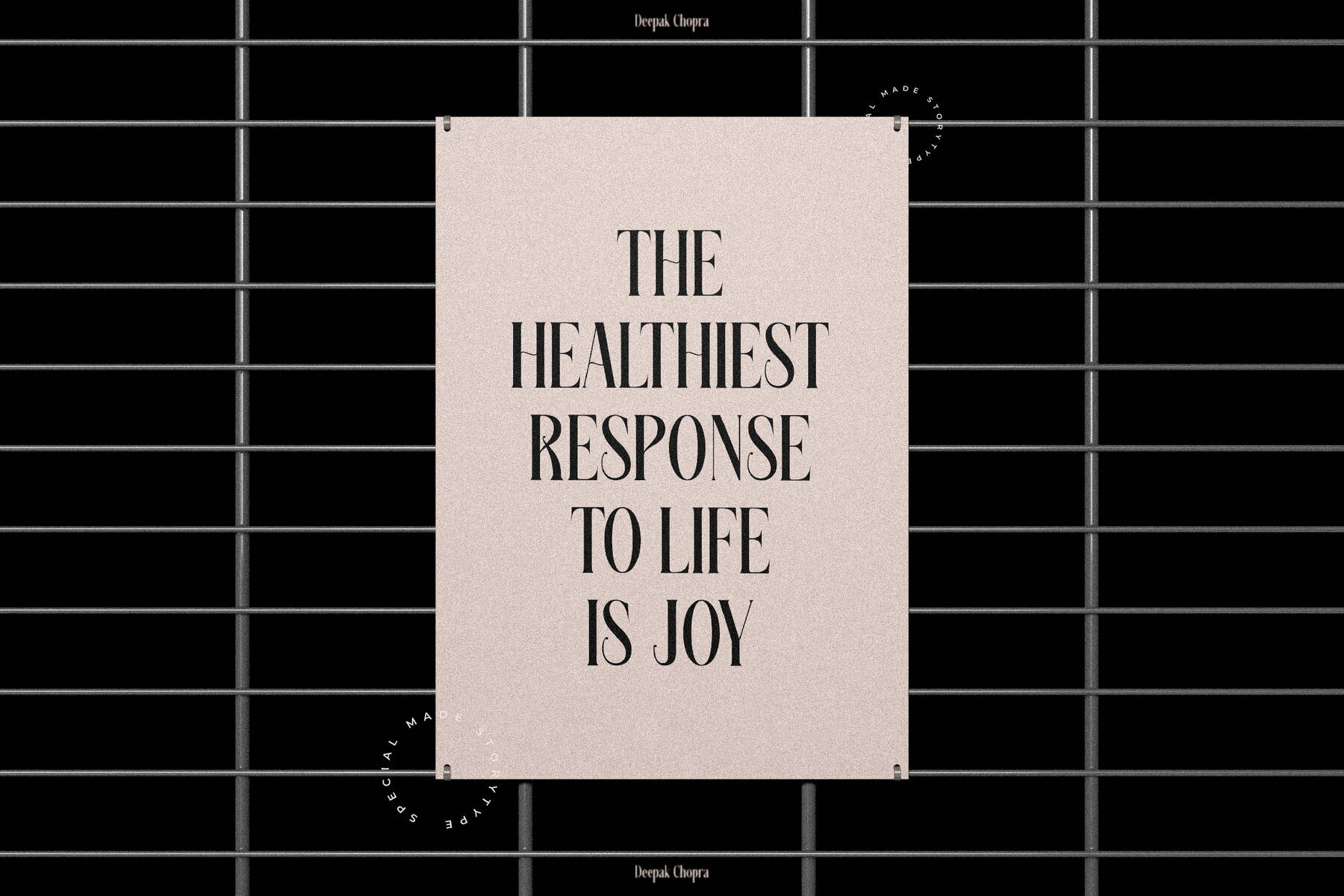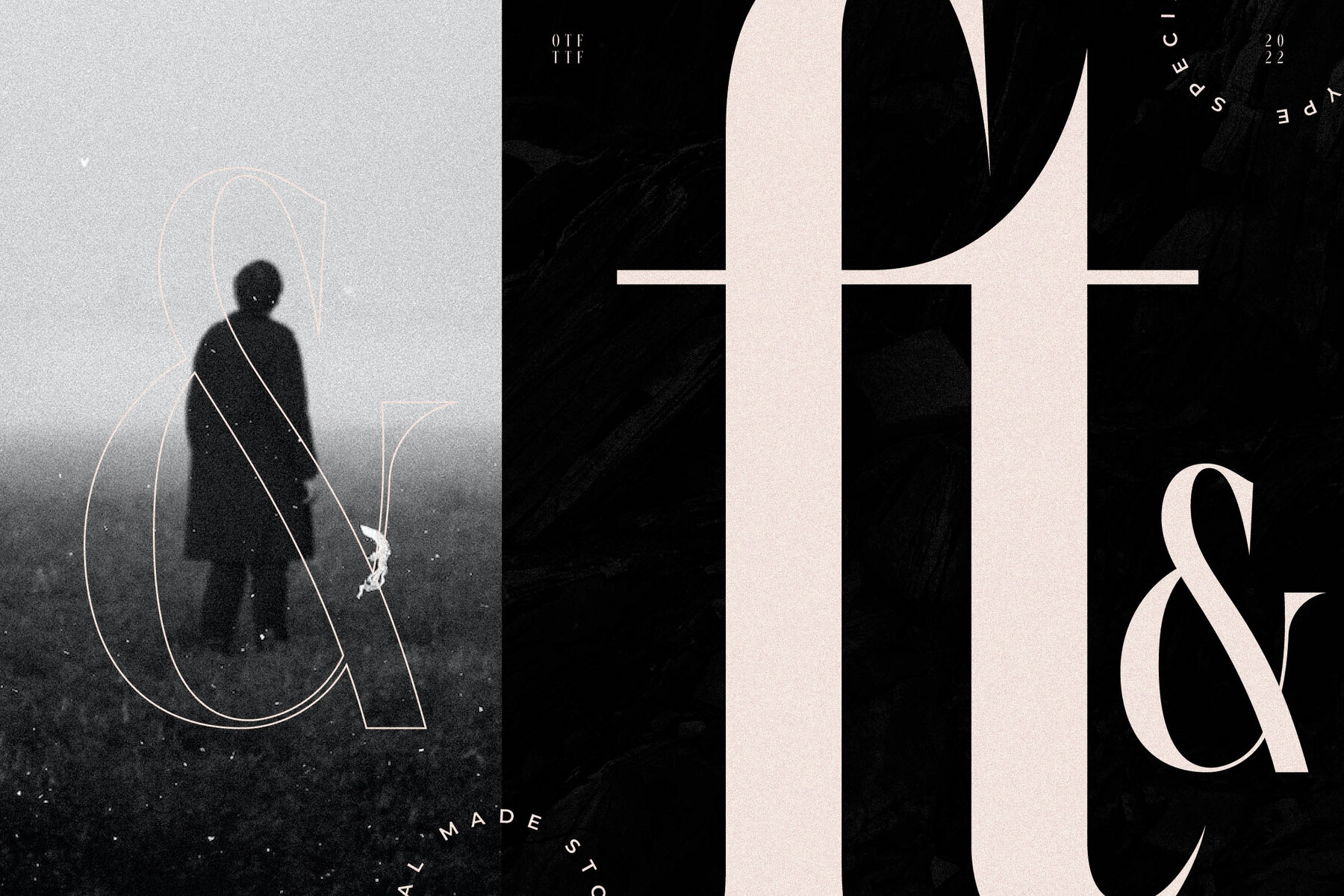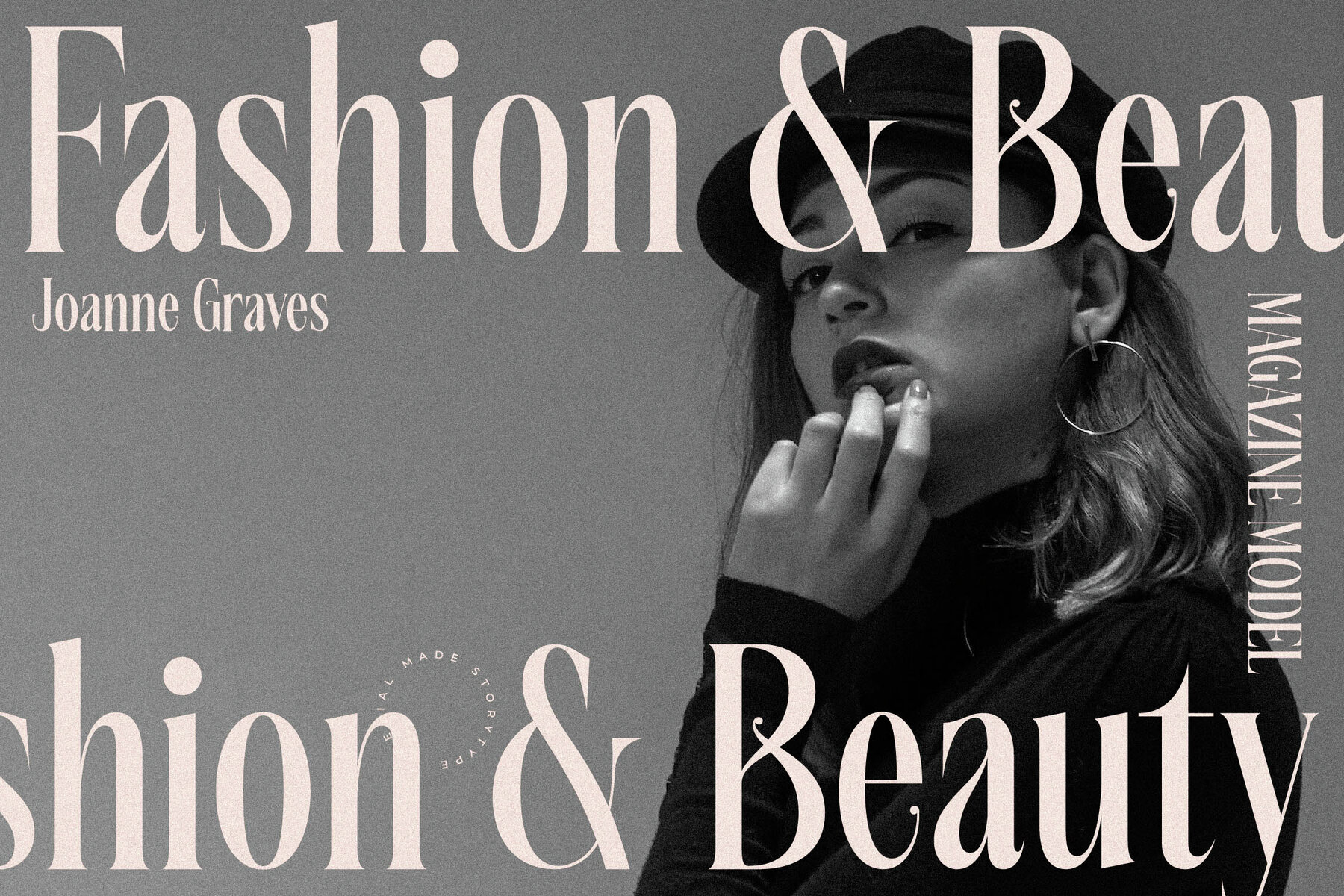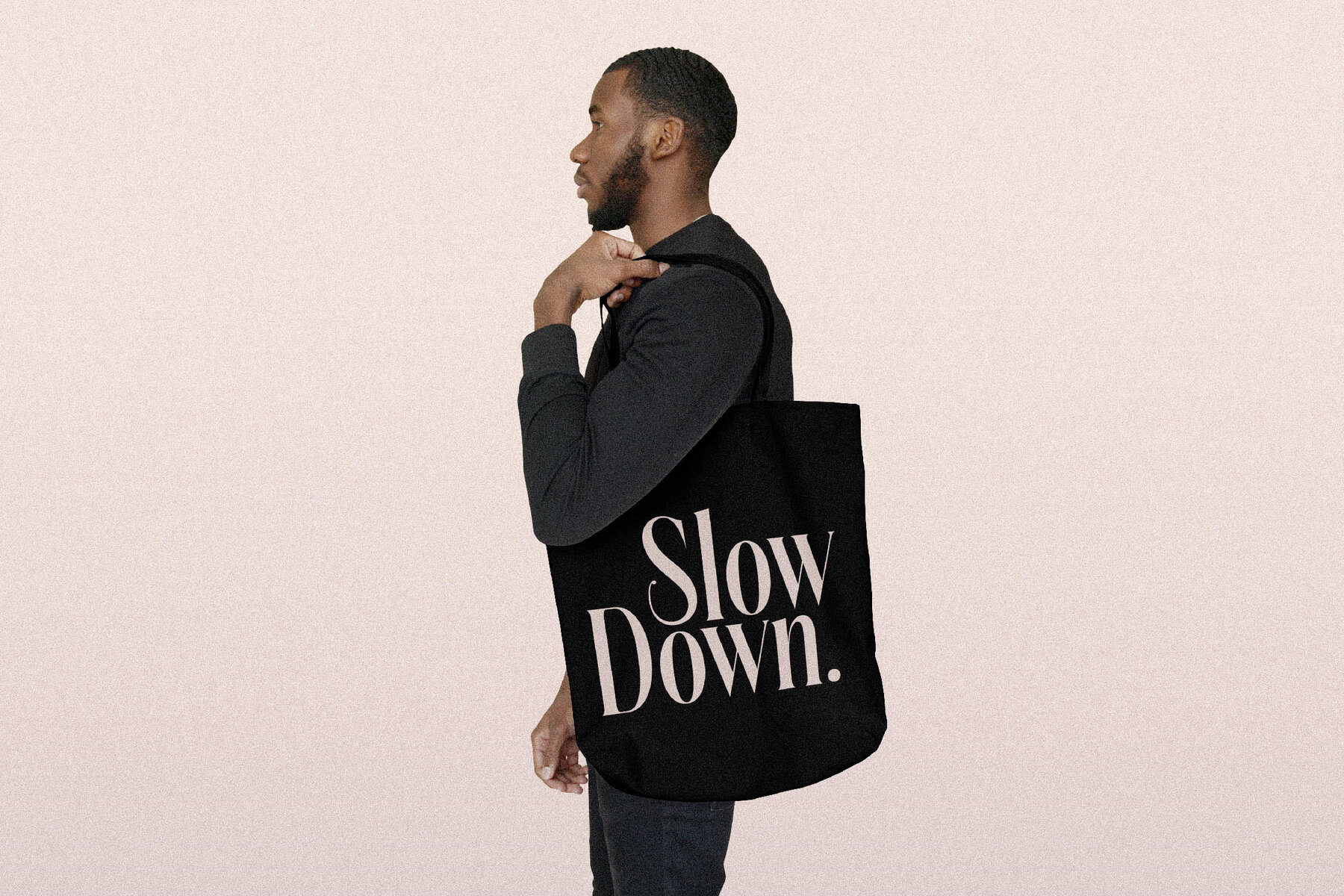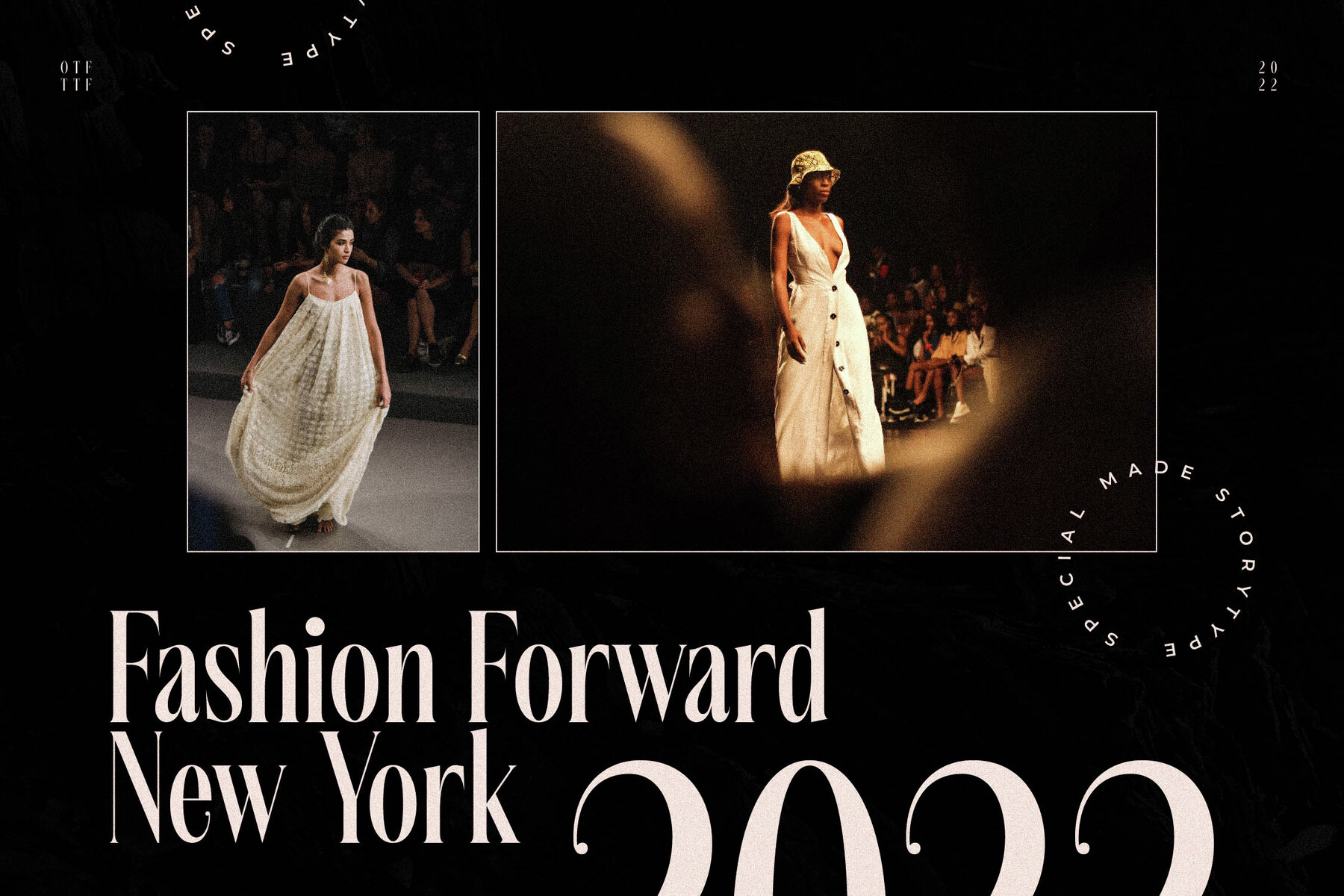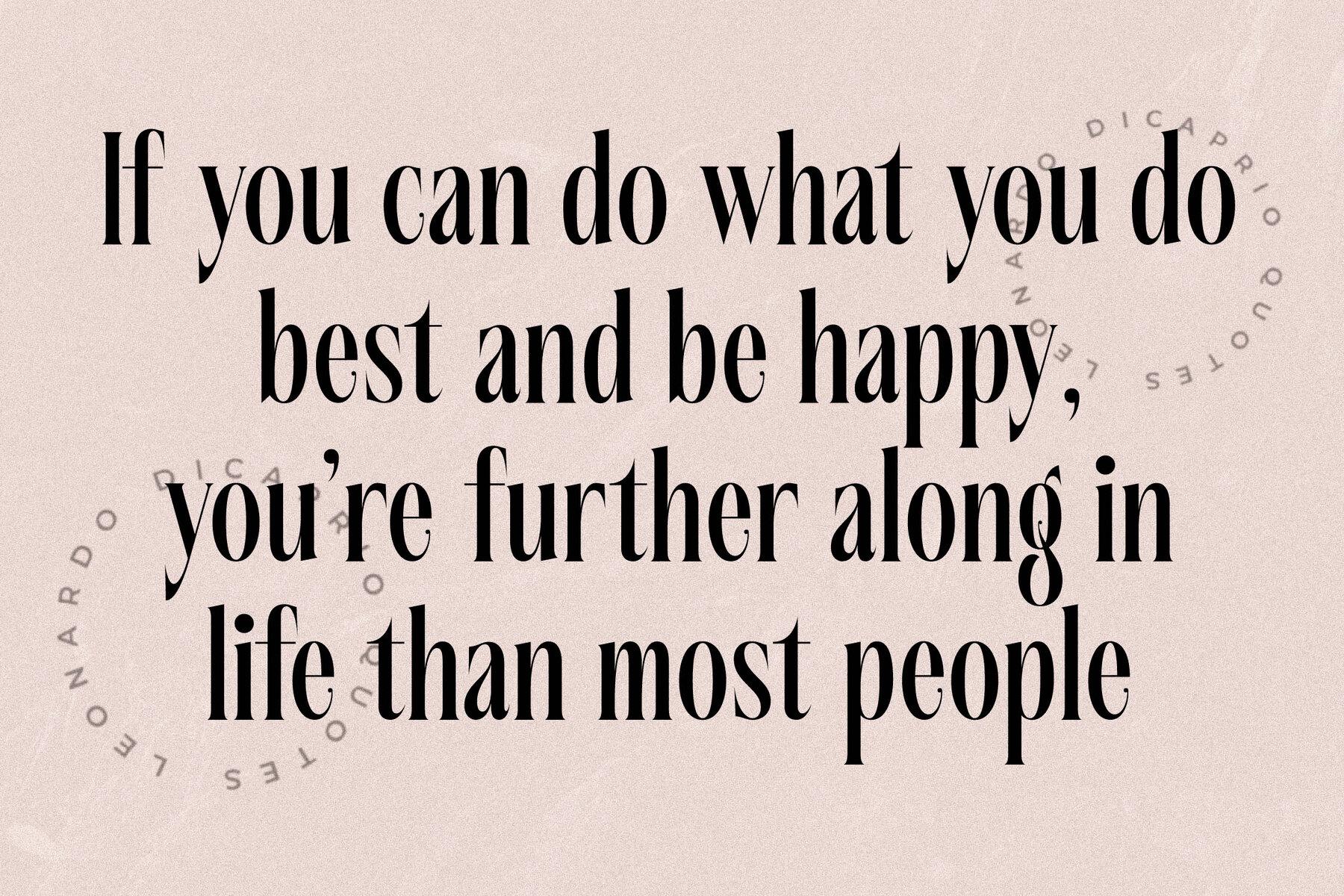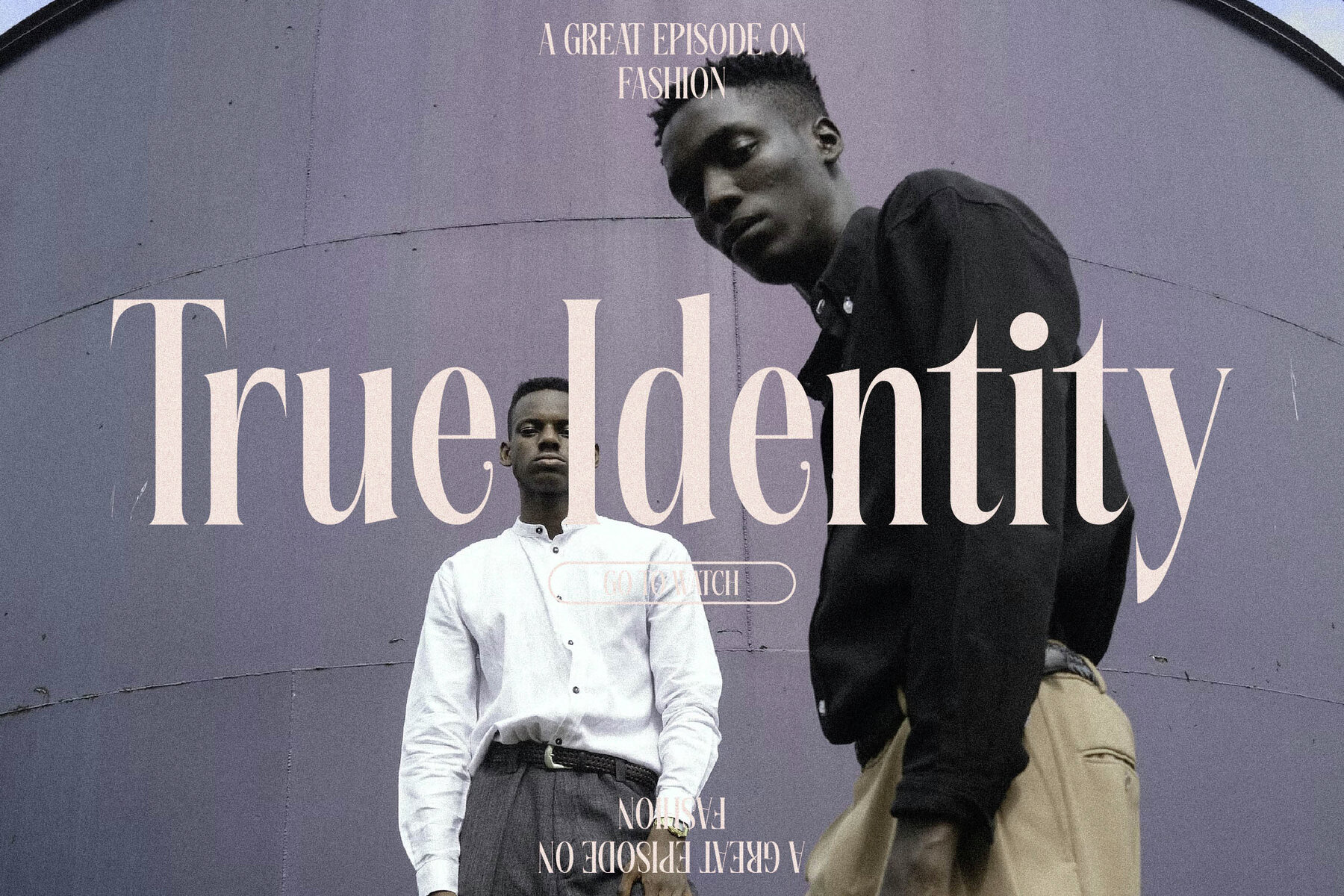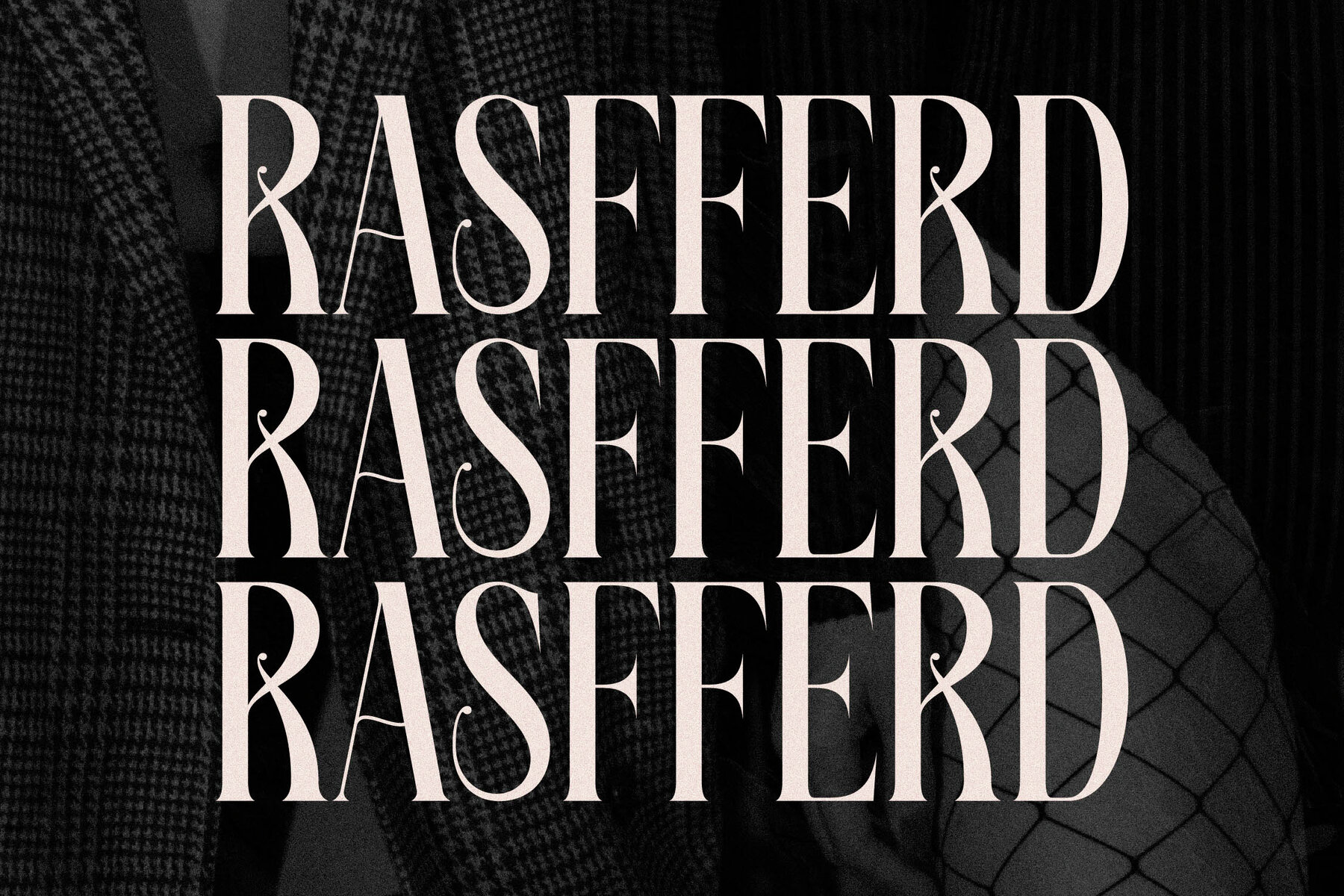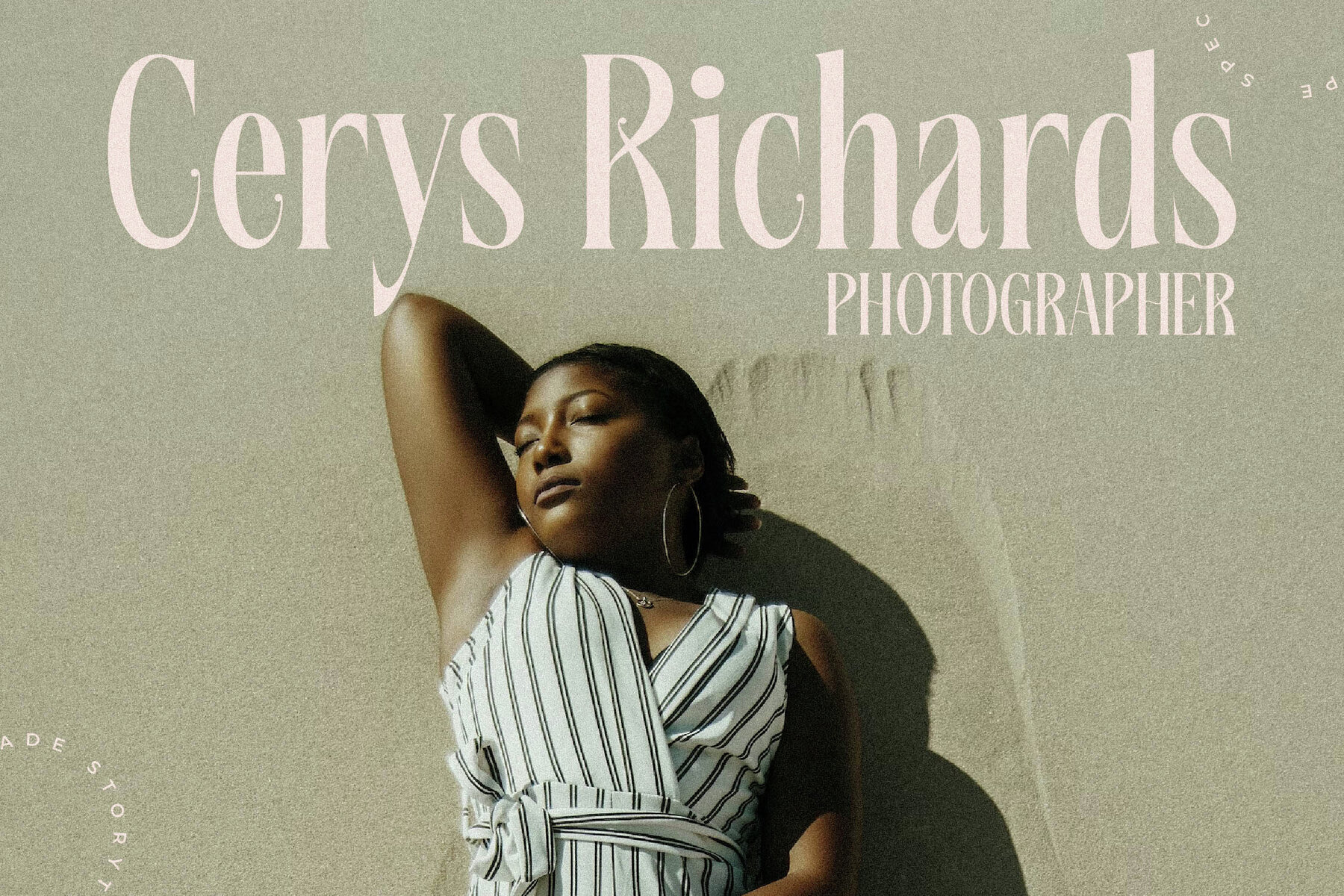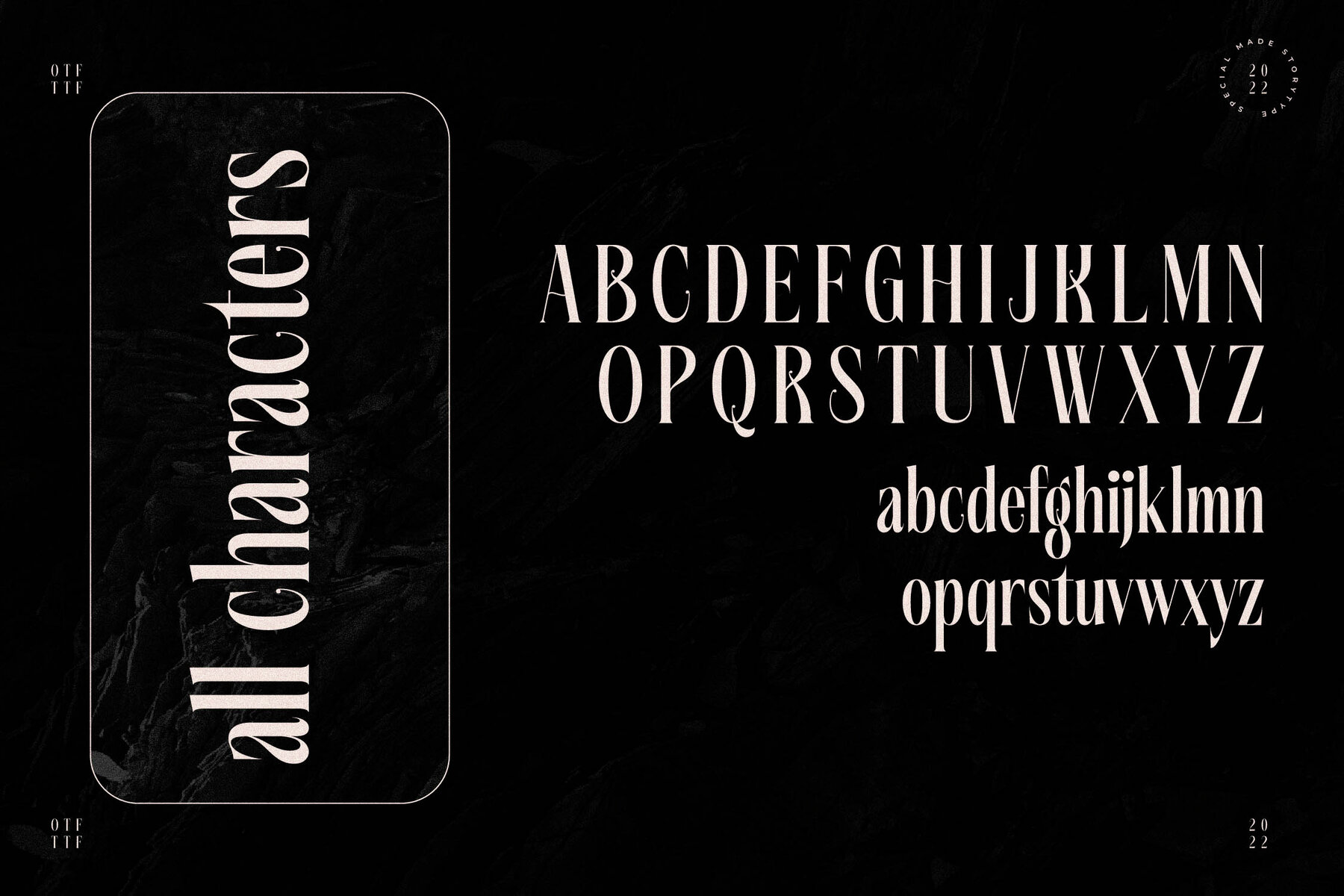
Rasfferd Font
Rasfferd
Rasfferd Italic
Proudly brought to you by Storytype Studio, Rasfferd is a serif typeface that blends modern elegance with classic refinement. Its unique style and sophisticated look make it an ideal choice for luxury branding, whether you're designing logos, book covers, or fashion magazines. Rasfferd's versatility ensures it shines in a variety of settings, from chic clothing lines to quotation artwork.Rasfferd Typeface